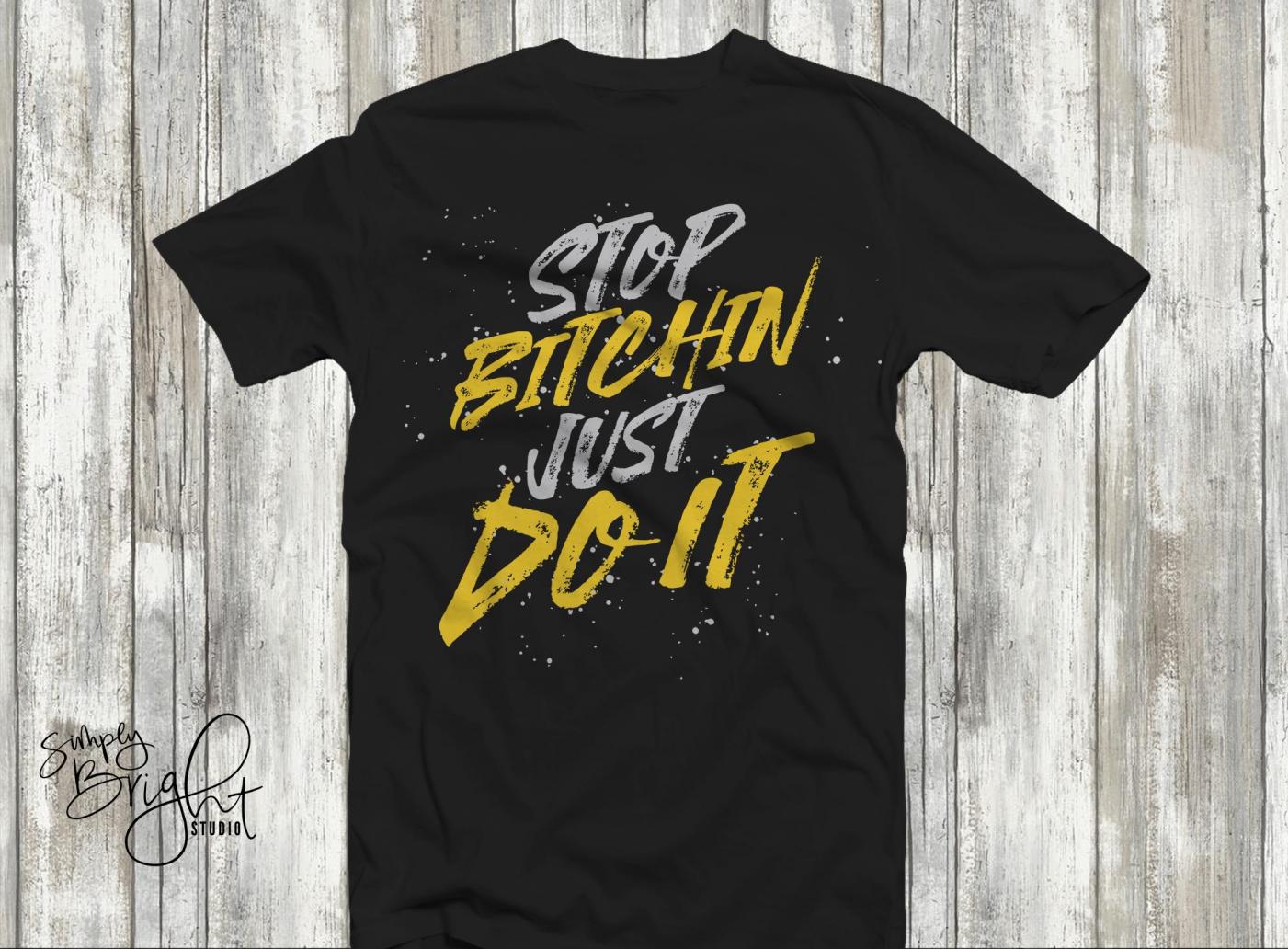
Looking for the font of this Simply Bright Studio Tshirt design
This Tshirt is by https://simplybrightstudio.com/ and I would love to know the exact font.
Found some similar fonts like https://www.dafont.com/colors-of-autumn.font but it doesn't have that brushed effect.